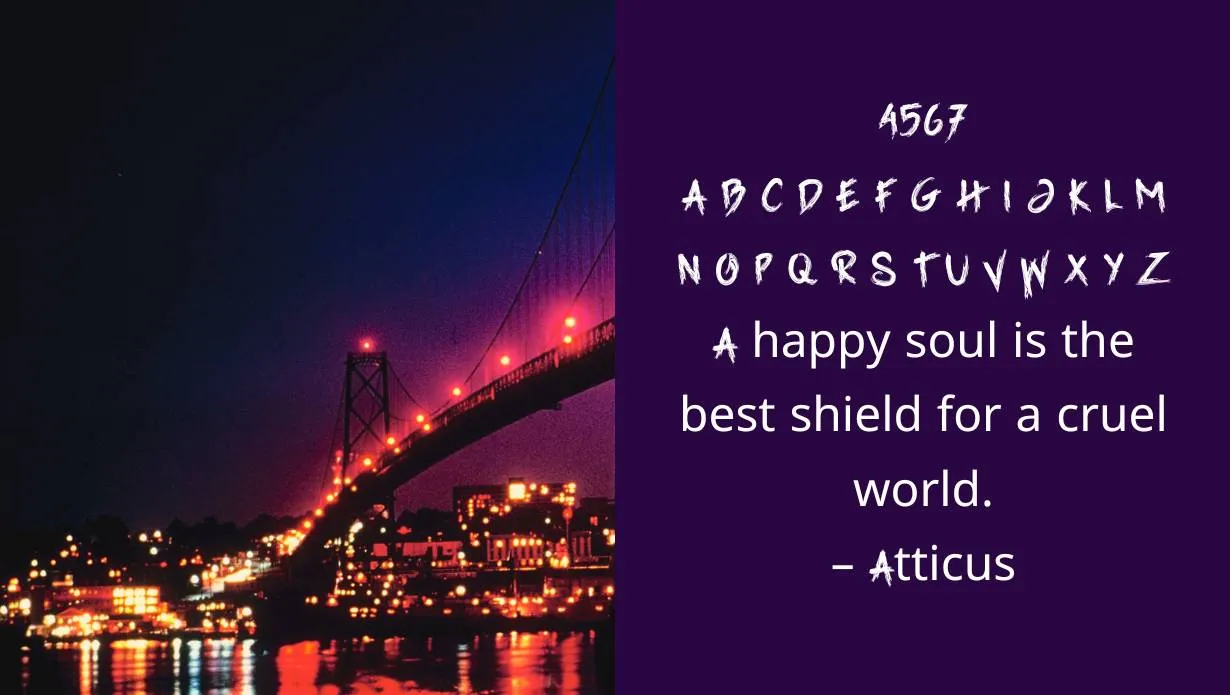
Grim Reaper Font is like the mysterious shadow of a suspenseful novel. Each letter adds a touch of dark intrigue, as if they’re part of an enigmatic tale. When you use Grim Reaper Font, your writing becomes like a chilling story, making every word feel mysterious and foreboding.
It’s like the suspenseful soundtrack of a thriller movie, giving your words a haunting and mysterious vibe. Pick Grim Reaper Font when you want your writing to have the eerie allure of a mysterious encounter.
| Name | Grim Reaper Font |
| Designer | Naharstd |